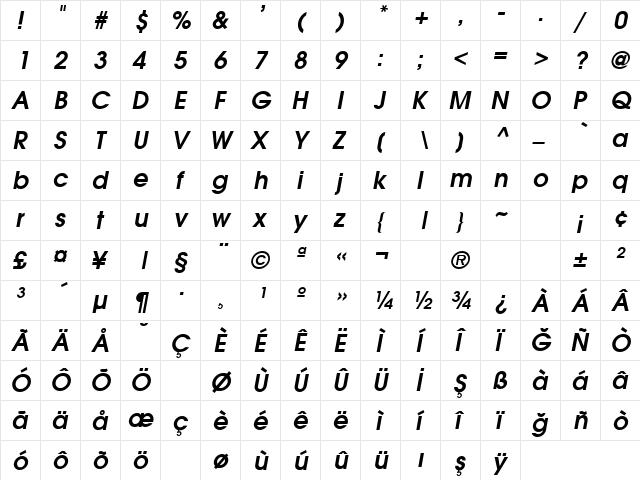
TR Avalon Bold Italic Font Preview
TR Avalon Bold Italic
Design Context for TR Avalon Typeface
TR Avalon is a composed and adaptable typeface that performs quietly and consistently across a wide range of design contexts. Its italic angle brings a sense of urgency and motion to the letterforms. The heavy weight commands attention and anchors typographic hierarchies.
Pro Tip: Try TR Avalon for annotation and caption copy alongside an upright companion — the contrast in angle creates a dynamic but ordered typographic system.